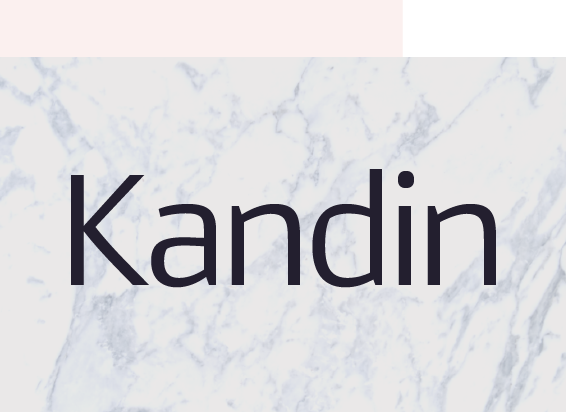
Currently #23 in the Hot New Fonts list at MyFonts... Kandin is a fresh sans inspired by the flawless craftsmanship of Scandinavian aesthetics and the sale ends tomorrow! Don't miss out on 70% off! >>> myfonts.com/fonts/northernblock/kandin/